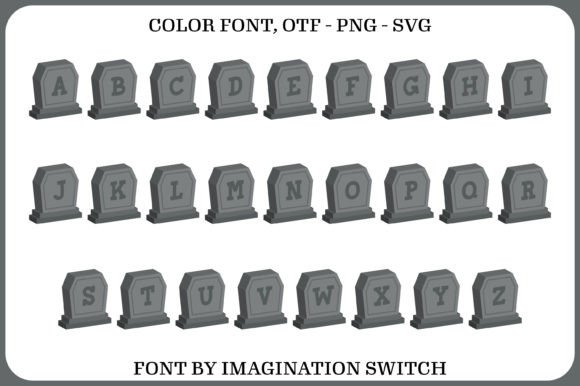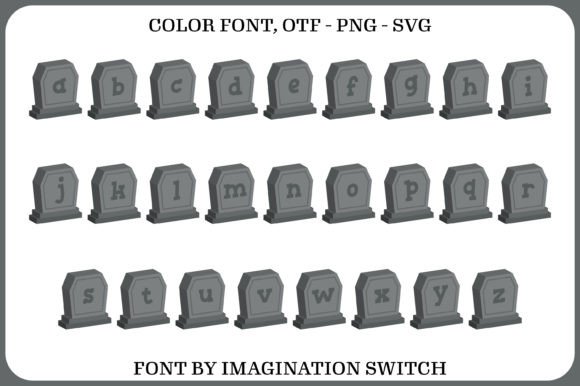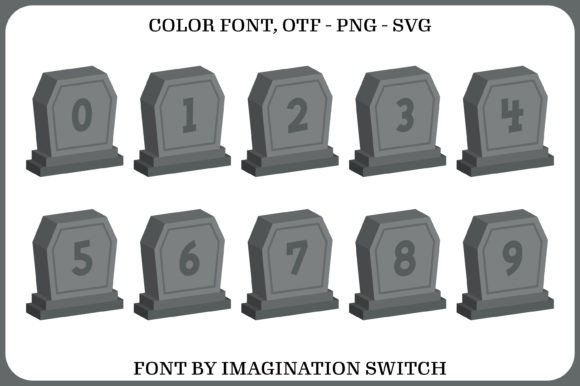
Mystic Story 3d Font – Free Download
Introduction to Mystic Story 3d Font
Mystic Story 3D is a captivating typographic creation that utilizes intriguing colors to enhance its visual appeal.
With a complete set of characters, including uppercase, lowercase, and numbers, this font has been meticulously designed to provide flexibility across various types of projects This font is suitable for a wide range of purposes, including print designs, web designs, promotional materials, and more.
Key Features of Mystic Story 3d Font
Why Choose Mystic Story 3d Font?
Mystic Story 3d Font offers exceptional quality and versatility, making it a valuable addition to your design toolkit. Whether you’re creating for personal projects or commercial use, Mystic Story 3d Font delivers professional results.